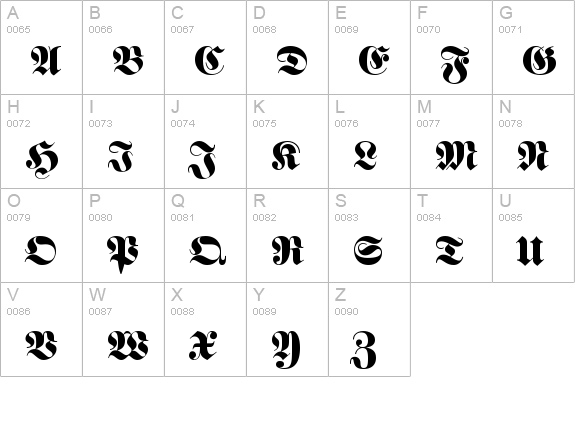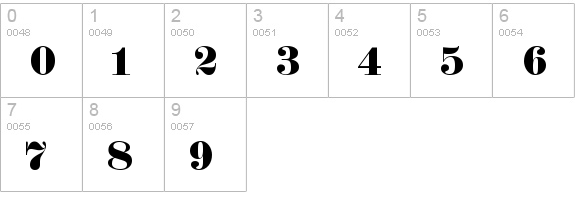
Bauble SSi Black is a maximum-weight, dramatic variant in the Bauble typeface family \xE2\x80\x94 well suited to maximum-impact headlines, posters, and packaging.
The Bauble SSi Black font is a stylish and elegant typeface that exudes sophistication and charm. Its bold and intricate design makes it perfect for adding a touch of luxury to your projects. With its unique flair and decorative elements, Bauble SSi Black is sure to make a statement and capture attention. The best part about Bauble SSi Black font is that it is available for free download at FontsMarket.com. This means you can easily access this stunning font and use it in your personal or commercial projects without any cost. So why wait? Add a touch of elegance to your designs with Bauble SSi Black font today!